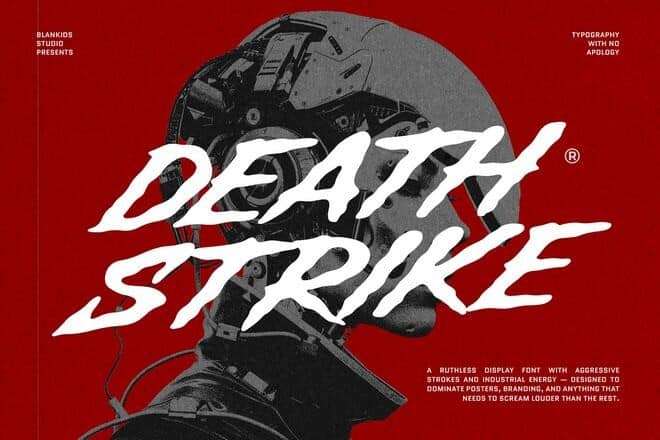
Aggressive fonts are built to make a statement with bold, unapologetic letterforms. These typefaces often feature sharp edges, heavy strokes, and distorted shapes that instantly grab attention. Their intense style adds a sense of rebellion and raw energy that works perfectly for designs me…